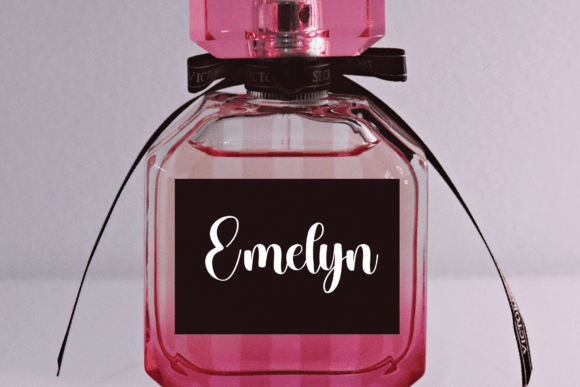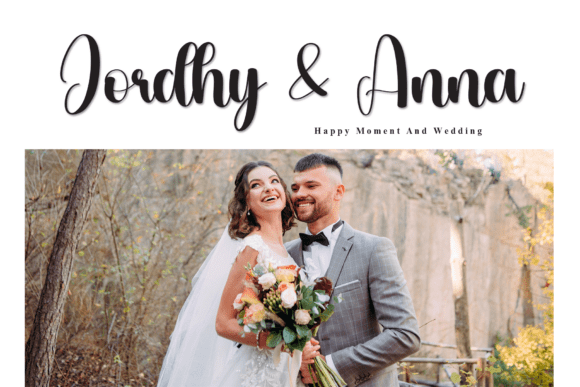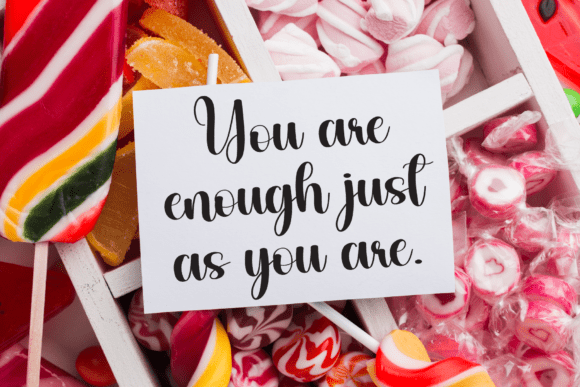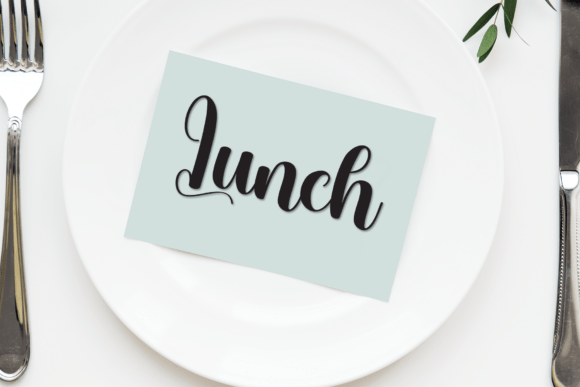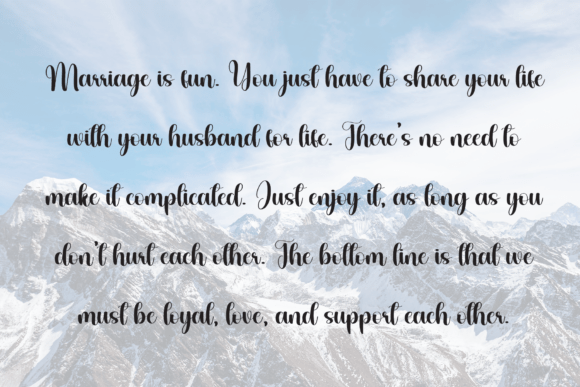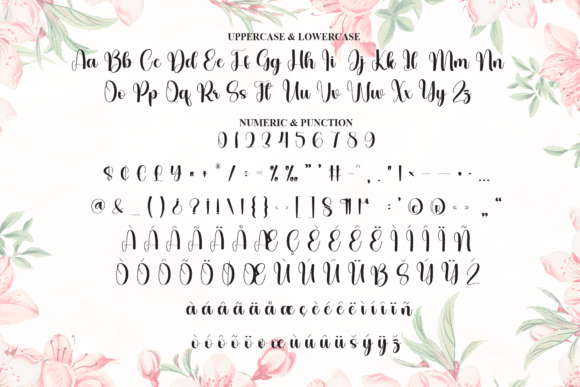
Introducing Angelic Font: Elevate Your Designs with Heavenly Typography
Are you tired of using ordinary fonts that fail to make your designs stand out? Look no further! Our Angelic Font is here to revolutionize your creative projects with its unique, hand-crafted style. This extraordinary font is perfect for designers, crafters, and anyone looking to add a touch of elegance and sophistication to their work.
Unleash Your Creativity with Angelic Font
Our Angelic Font is designed to provide you with a special creative experience. With its latest style letters, you can create stunning wall displays, wedding invitations, social media post logos, advertisements, product packaging, product designs, labels, photography, watermarks, invitations, stationery, and any project that requires tasteful handwriting. The possibilities are endless, and with Angelic Font, you can take your designs to new heights.
Why Choose Angelic Font?
So, what sets Angelic Font apart from other fonts on the market? Here are just a few reasons why designers and crafters love our font:
- Unique style: Our hand-crafted font features a one-of-a-kind design that’s sure to make your projects stand out.
- Versatility: Use Angelic Font for a wide range of projects, from wedding invitations to product packaging and more.
- Elegance: Add a touch of sophistication and elegance to your designs with our beautiful font.
Angelic Font is perfect for designers and crafters who want to elevate their projects with high-quality typography. Whether you’re a professional designer or a DIY crafter, our font is designed to help you create stunning projects that showcase your creativity and style.
Get Ready to Experience the Extraordinary
With Angelic Font, you can expect an extraordinary experience that will take your designs to new heights. Our font is designed to be easy to use, versatile, and elegant, making it perfect for a wide range of projects. So why wait? Get your Angelic Font today and start creating stunning designs that showcase your unique style.
In conclusion, Angelic Font is the perfect addition to any designer’s or crafter’s toolkit. With its unique style, versatility, elegance, and ease of use, our font is sure to become a favorite. Whether you’re looking to create stunning wall displays, wedding invitations, social media post logos, or any other project that requires tasteful handwriting, Angelic Font is the perfect choice. So don’t wait – get your Angelic Font today and experience the extraordinary for yourself!